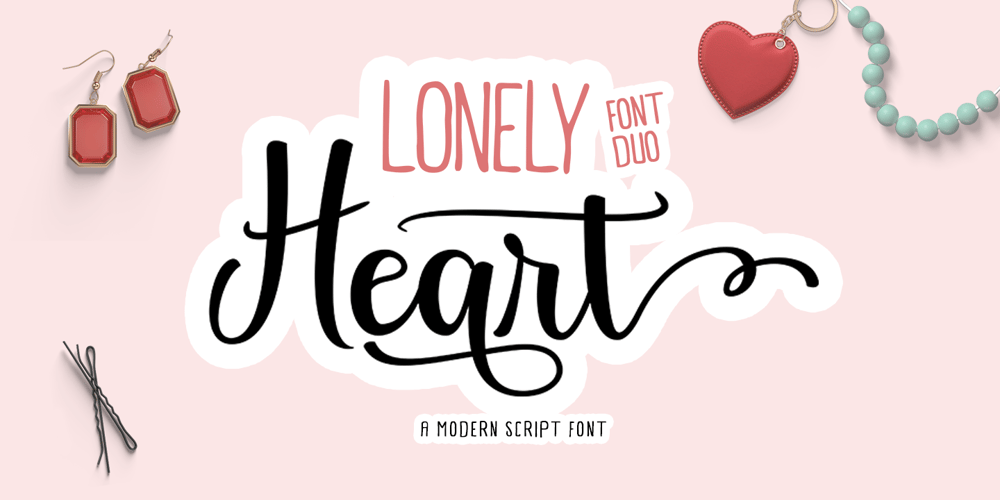
Lonely Heart Font Family was designed by Reza Haitami and published by Black Studio. Lonely Heart contains 2 styles and family package options. Lonely Heart Font Duo is a fancy font. which comes with a combination of modern and elegant fonts, namely Script and Sans style. You can combine them to create beautiful typography. This handmade style makes it perfect to use in all your design projects be it logos, labels, packaging designs, blog titles, posters, wedding designs, social media posts, Instagram designs, invitation cards, art quotes, home decor, book covers/titles , etc.Here’s what’s included:Lonely Heart Regular / Bold Script• Elegant and realistic Script font contains 108+ ligatures and substitutes, lowercase, uppercase, all punctuation & numbers.Regular / Thick Lonely Heart• Sans font with upper and lower case, all punctuation marks, numbers and Language support• Lonely Heart supports the following languages; English, French, Italian, Spanish, Portuguese, German, Swedish, Norwegian, Danish, Dutch, Finnish, Indonesian, Malay, Hungarian, Polish, Croatian, Turkish, Romanian, Czech, Latvian, Lithuanian, Slovak, Slovenian.I hope you enjoy this font. If you have any questions, feel free to message me 🙂